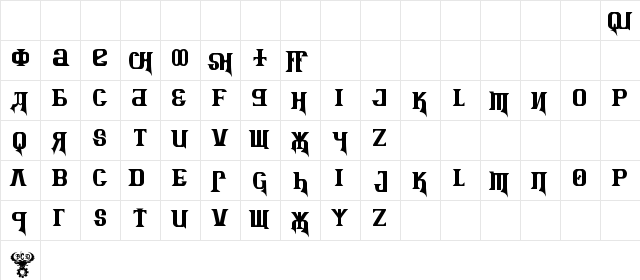
Kremlin Advisor Display Kaps Bo Bold
Designer: BoltCutterDesign
Design Context for Kremlin Advisor Display Kaps Bo
Kremlin Advisor Display Kaps Bo is built around its visual character rather than neutral utility - its distinctive forms are designed to make an impression at display sizes. Its bold stroke weight gives it real presence on the page.
Font Pairing: Pair with a clean neutral sans-serif for body copy to let Kremlin Advisor Display Kaps Bo's character lead without overwhelming the composition.
Pro Tip: Use Kremlin Advisor Display Kaps Bo exclusively at display sizes - it was designed to be seen, not read at length. Let a neutral companion handle body copy.